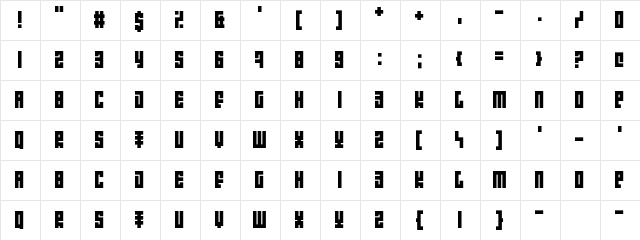
Complete Introducing Pretentiousness Regular glyph index. Displaying only characters natively supported by Introducing Pretentiousness Regular font.
Introducing Pretentiousness is a composed and adaptable typeface that performs quietly and consistently across a wide range of design contexts.